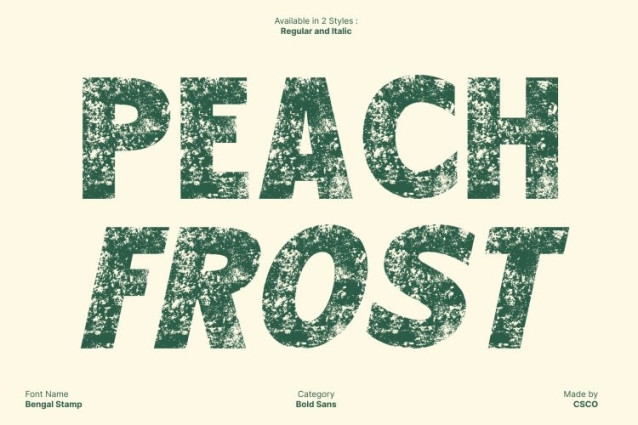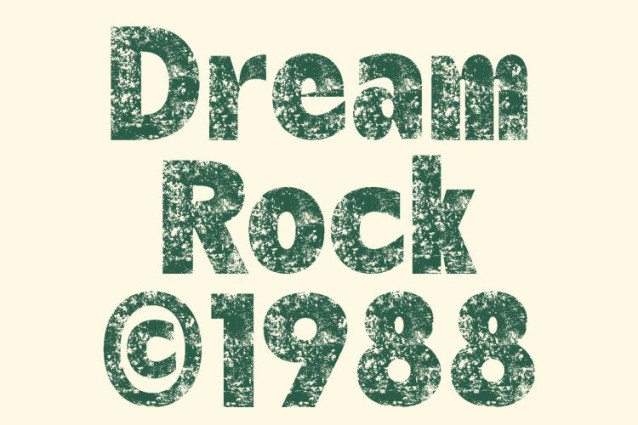
Bengal Stamp Font
Bengal Stamp Font This is a sans serif display font designed to bring rhythm, personality, and a lively visual punch to every layout. Featuring playful bold shapes paired with an expressive stamp texture, this font delivers a handcrafted, energetic feel that instantly stands out.
Vintage Personality with Modern Impact
Blending bold contemporary forms with a nostalgic stamped style, this font strikes the ideal balance between retro charm and modern clarity. The rounded, friendly shapes give it a soft approachability, while the textured details evoke classic print techniques.
Perfect for Posters, Headlines, and Branding
This font is engineered to dominate attention. Its thick, playful strokes make it ideal for posters, titles, packaging, and bold branding projects that demand visual impact. Whether used as a main headline or a supporting graphic element, the font retains its presence and personality across various scales and mediums, offering designers a versatile tool for expressive storytelling.
Rhythm, Texture, and Design Flexibility
With its bold proportions and dynamic stamped texture, this font introduces a sense of movement and rhythm to any composition. This makes it a great choice for creative campaigns, event posters, artistic merchandise, or editorial layouts that benefit from a lively, tactile feel.